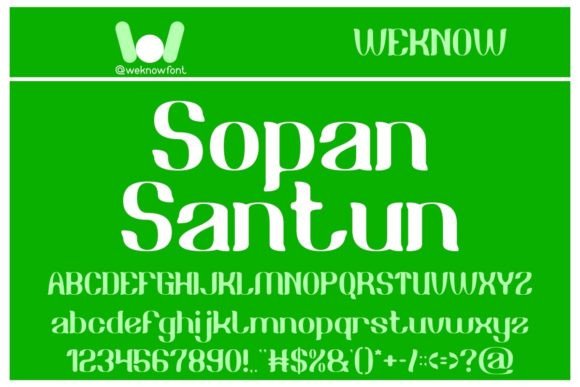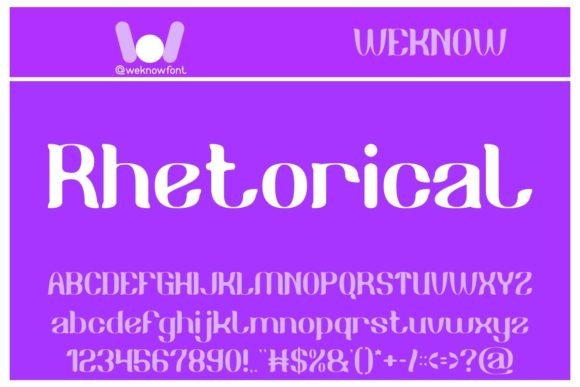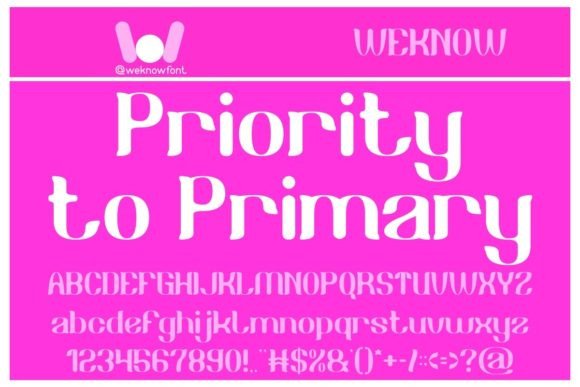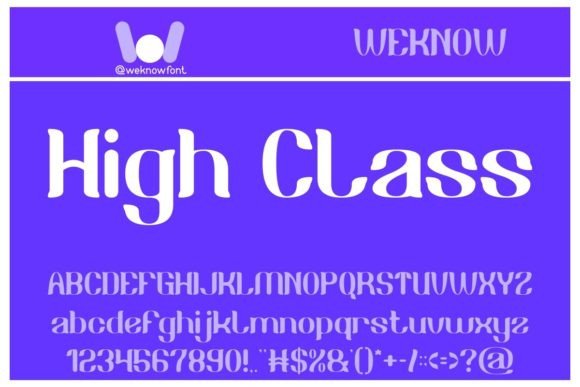
Introduction to Metaphor Font
Have you ever stared at a blank canvas, trying to bring a creative idea to life, only to be halted by the perfect font to match your vision? This is where the magic of typography comes in. For designers, the right font can elevate a project from good to great, making it stand out in a crowded space.
Enter the Metaphor Font, a stunning serif display font designed to captivate audiences and leave a lasting impression. With its unique style and high-quality design, this font is perfect for a wide range of creative projects, from logos and logotypes to posters, music albums, and even book covers.
Key Features of Metaphor Font
- High-quality, professional design perfect for creative projects and presentations
- Available in 5 different font styles: Thin, Light, Regular, Medium, and Bold
Honest Review: Metaphor Font
I recently had the chance to experiment with the Metaphor Font, and I must say, it’s a great addition to any design arsenal. As a designer, I’m always on the lookout for high-quality fonts that can elevate a creative project and give it that extra oomph.
Here’s what works well with the Metaphor Font:
- ✨ Unique character set that adds a touch of elegance to any design
- ✨ Highly legible, even at small font sizes
- ✨ Perfect for designs that require a bit of sophistication and refinement
- ⚠️ May not be suitable for designs that require a transparent background, as the font can be quite bold
Overall, I’d say the Metaphor Font is a solid choice for designers looking to add some depth and character to their work. While it may not be perfect, its high-quality design and unique character set make it a valuable addition to any design resource collection.
Metaphor Font: Unlocking Creative Potential